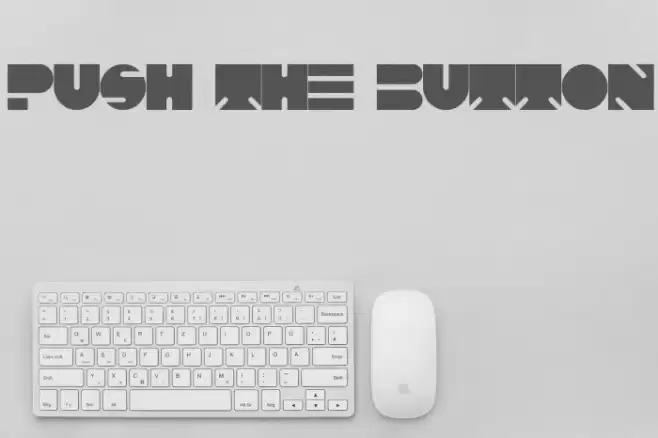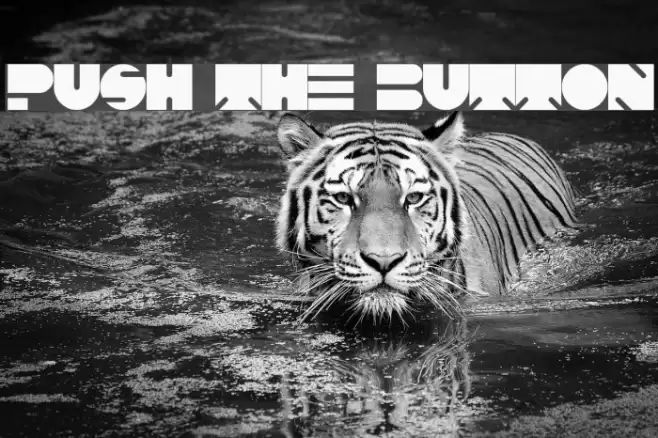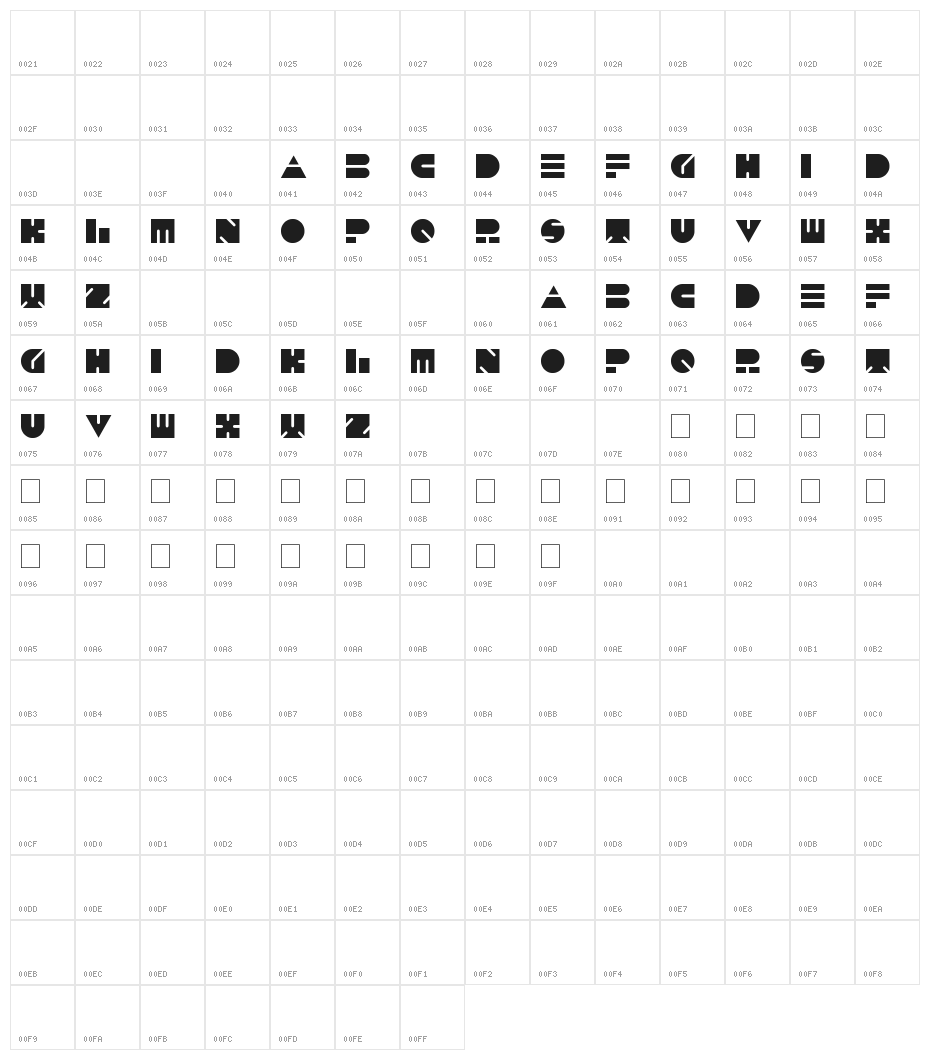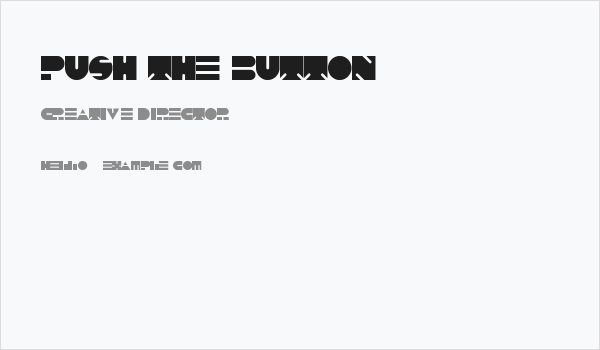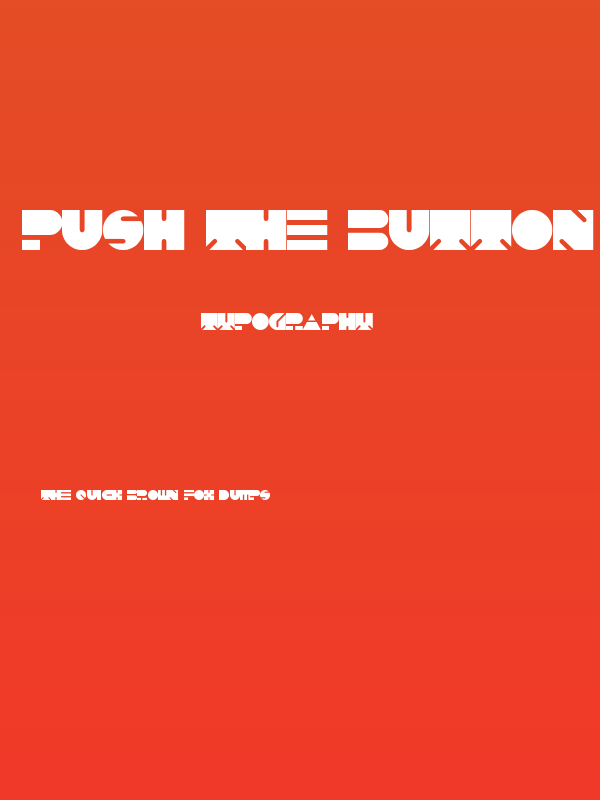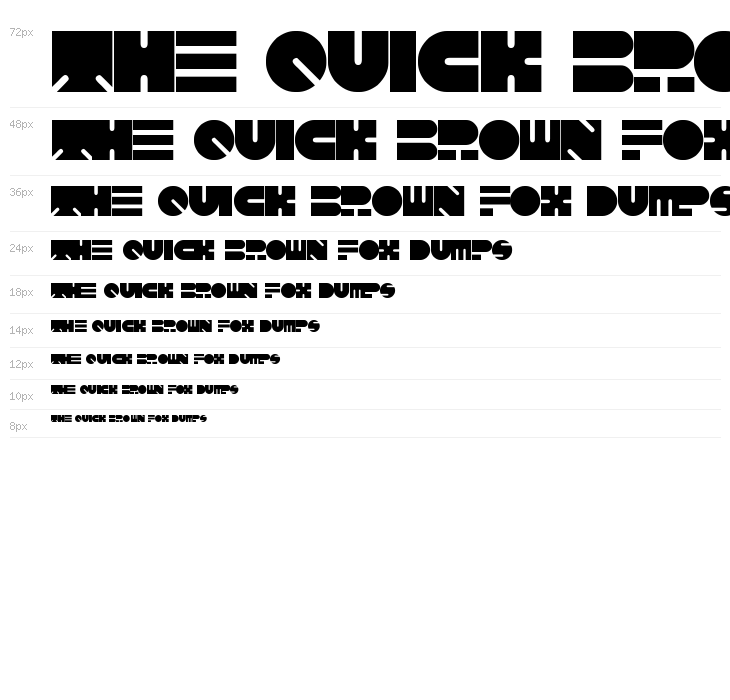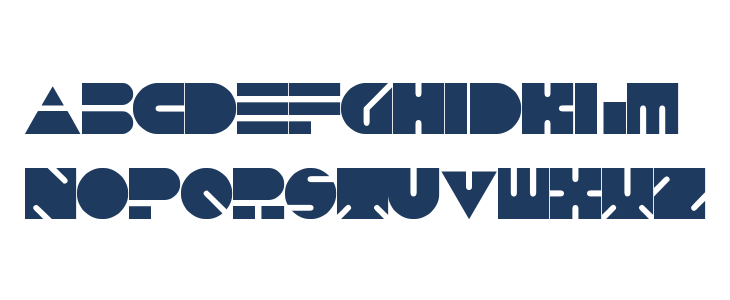
PUSH THE BUTTON Font
PUSH THE BUTTON Description
This font features a bold, geometric design with a futuristic and industrial aesthetic. The characters are constructed with solid, block-like shapes, often incorporating sharp angles and straight lines. The uppercase letters are particularly striking, with some characters featuring unique cutouts and negative spaces that add to the font's distinctiveness. The overall appearance is modern and edgy, making it suitable for projects that require a strong visual impact. The font's style is reminiscent of digital or technological themes, making it ideal for use in tech-related branding or media.
A bold, geometric font with a futuristic and industrial style from Uncategorized fonts.
- Proposed Projects: Ideal for technology branding, sci-fi movie posters, video game titles, and digital media.